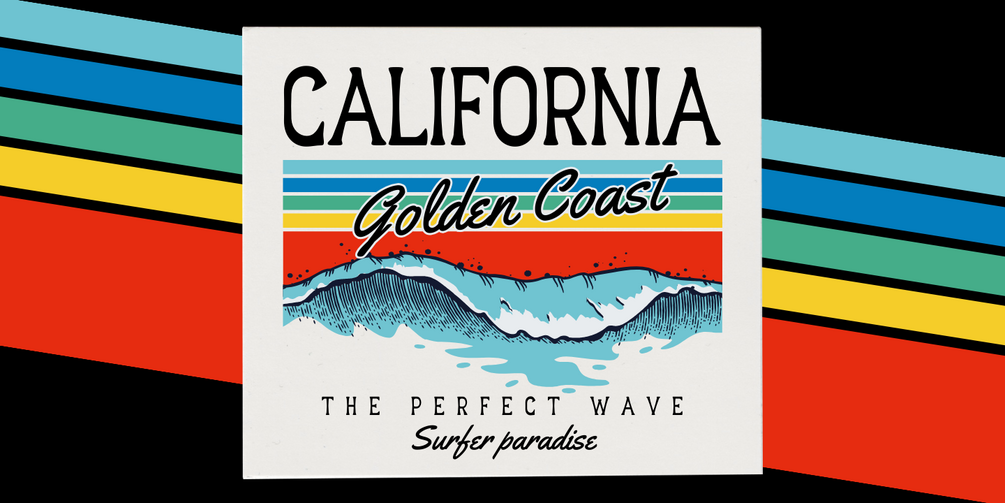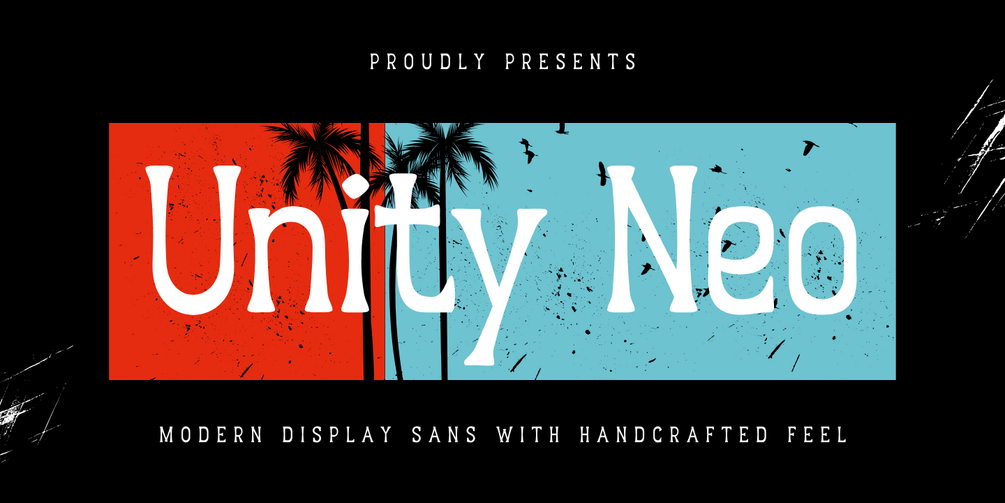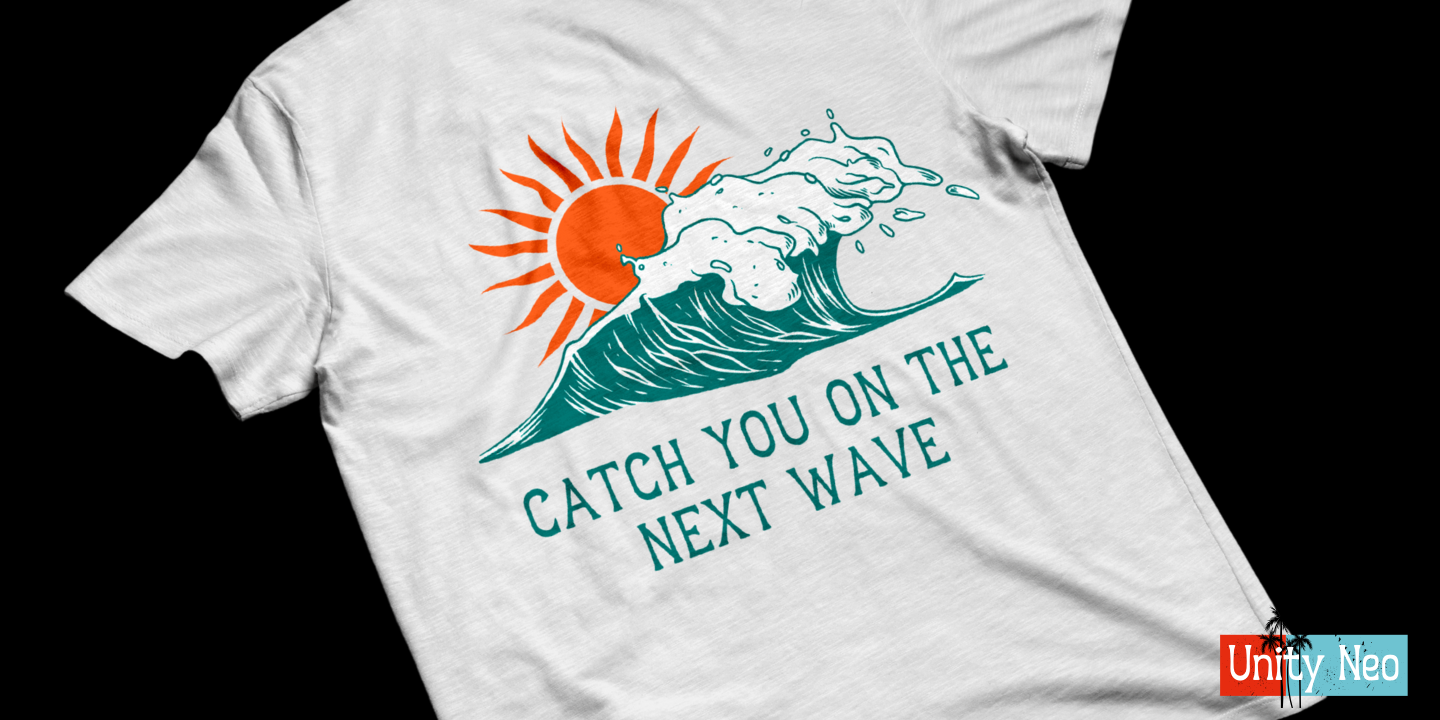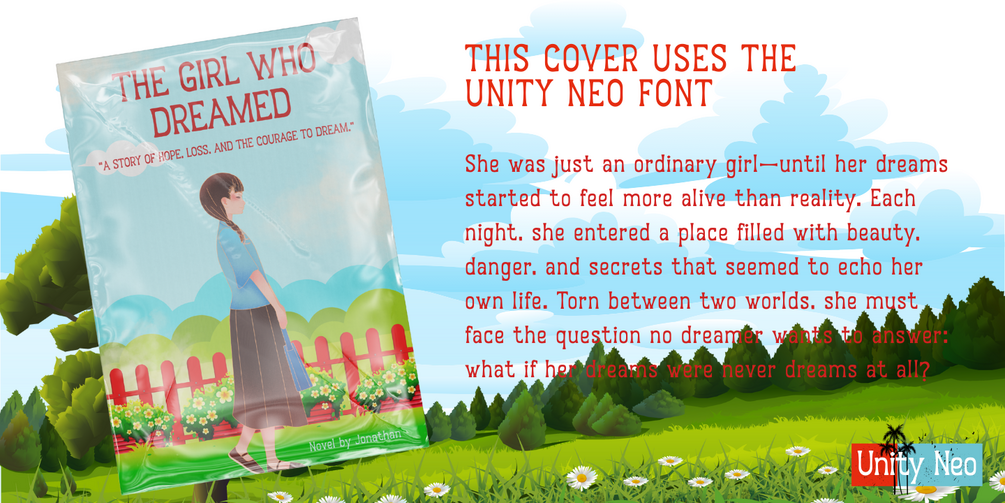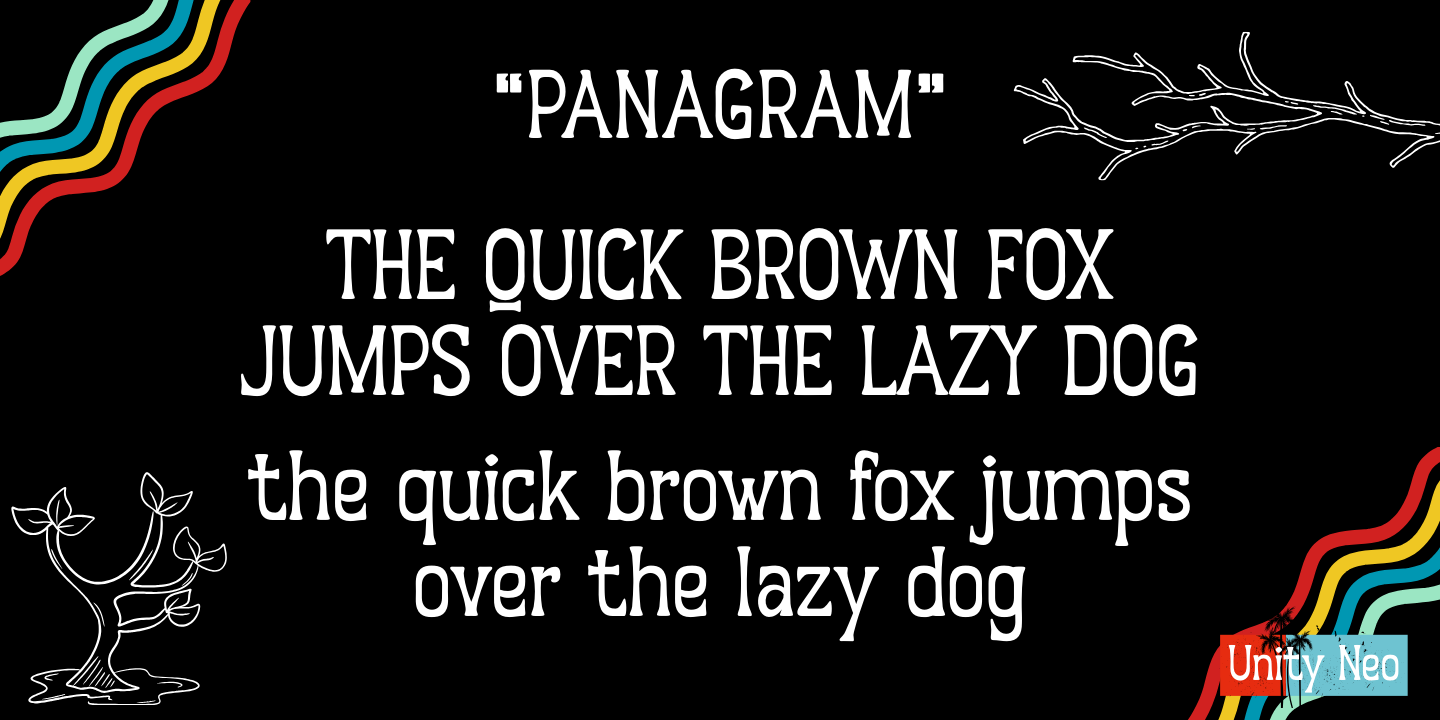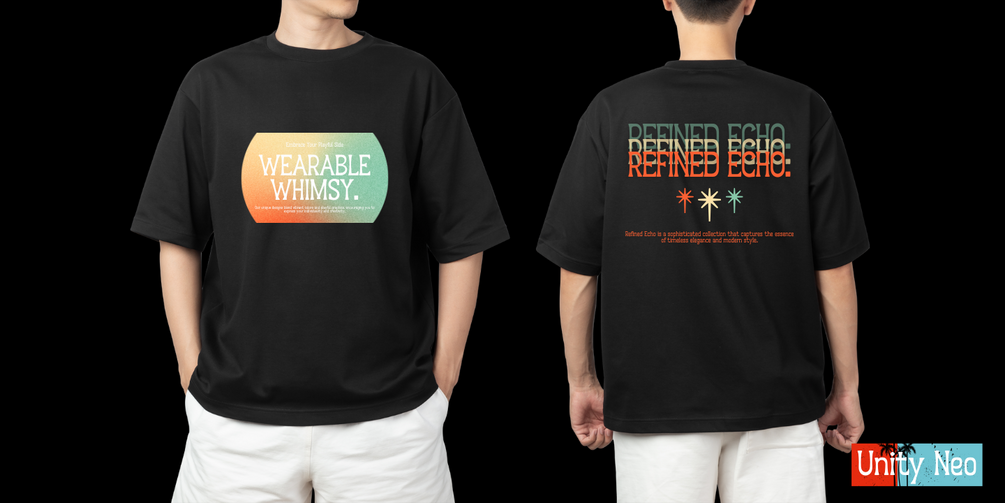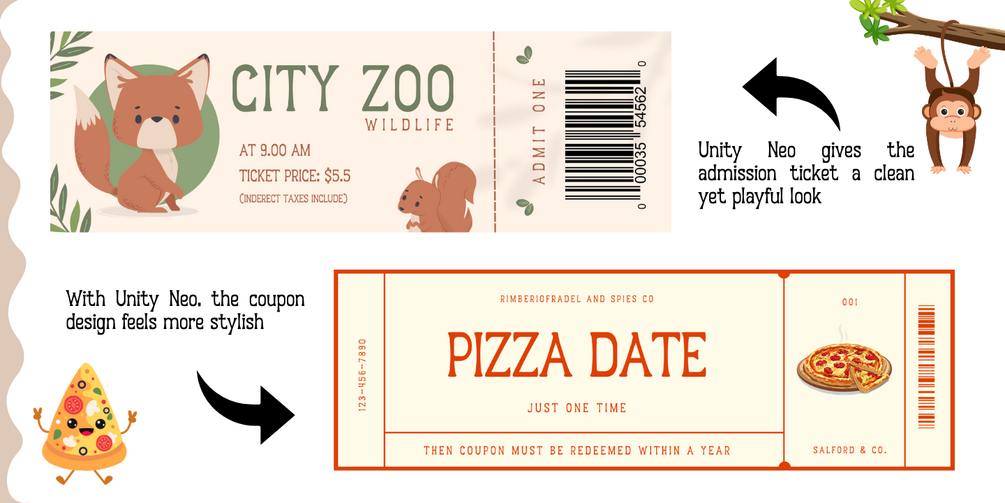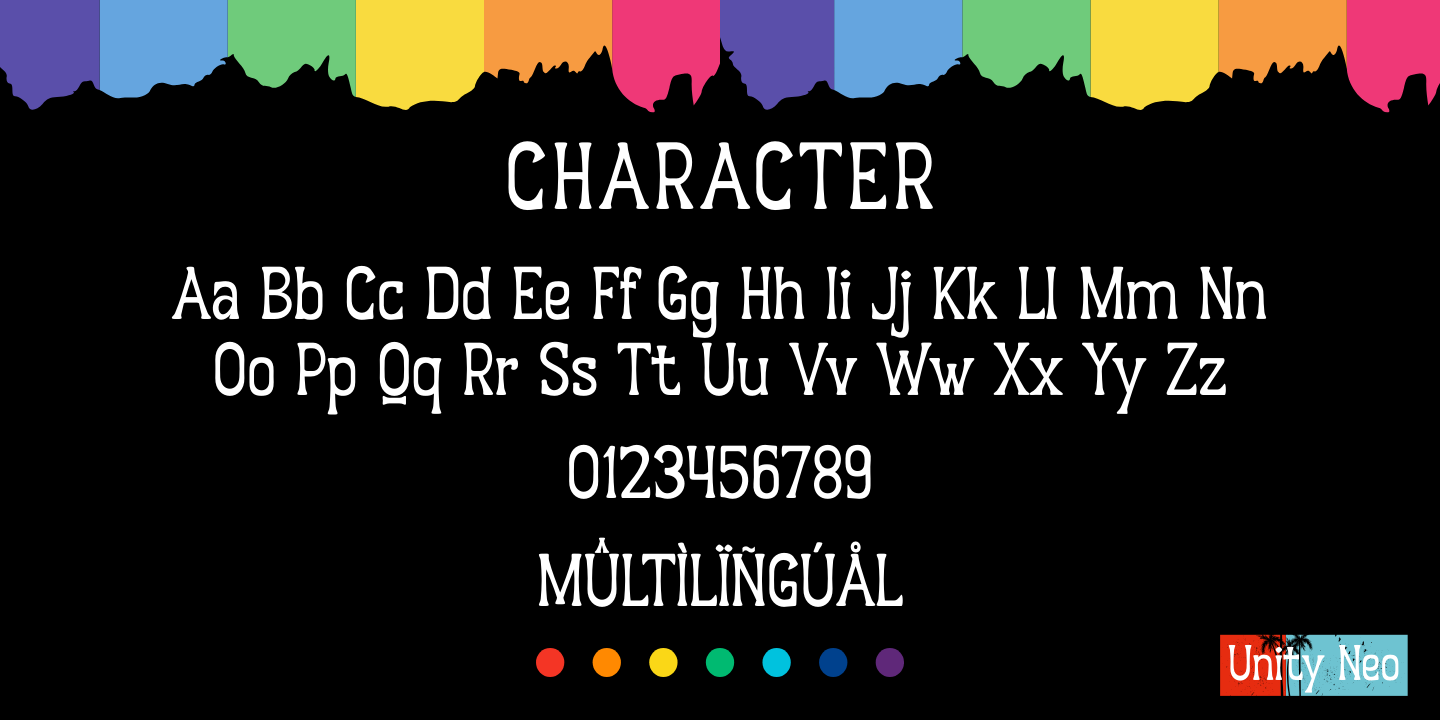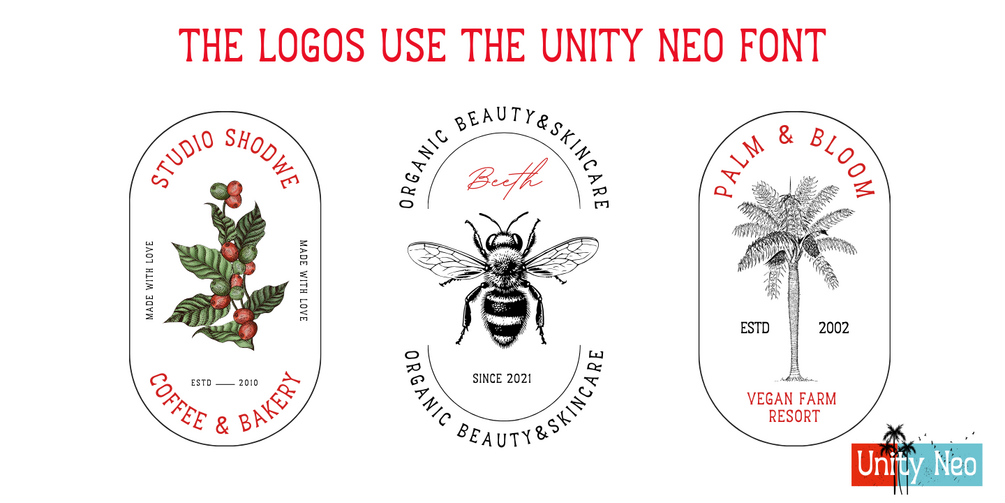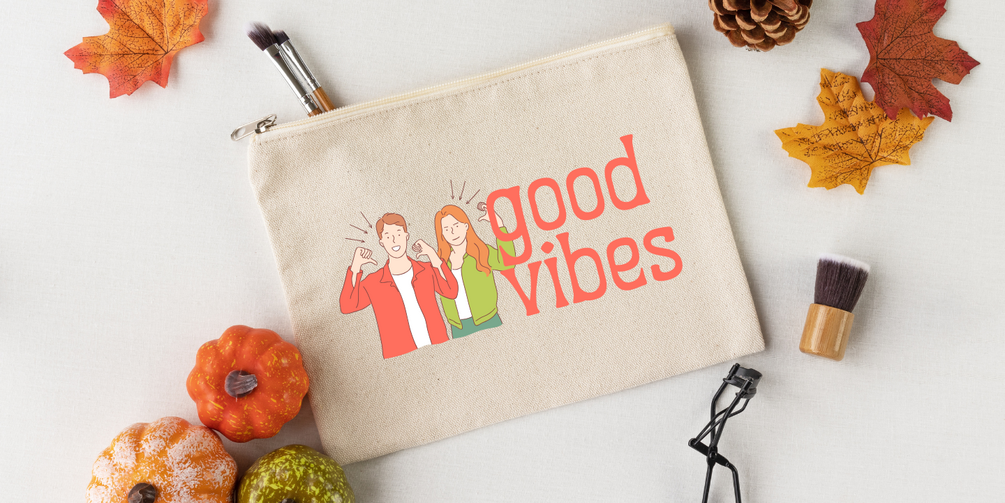
Unity Neo
Unity Neo is a playful display sans font with a unique handwritten touch.
Its quirky letterforms bring personality and charm, making it perfect for posters, tickets, packaging, or branding projects that need a friendly and modern feel. With clean yet characterful shapes, Unity Neo adds a handcrafted vibe while keeping your design fresh and eye-catching.